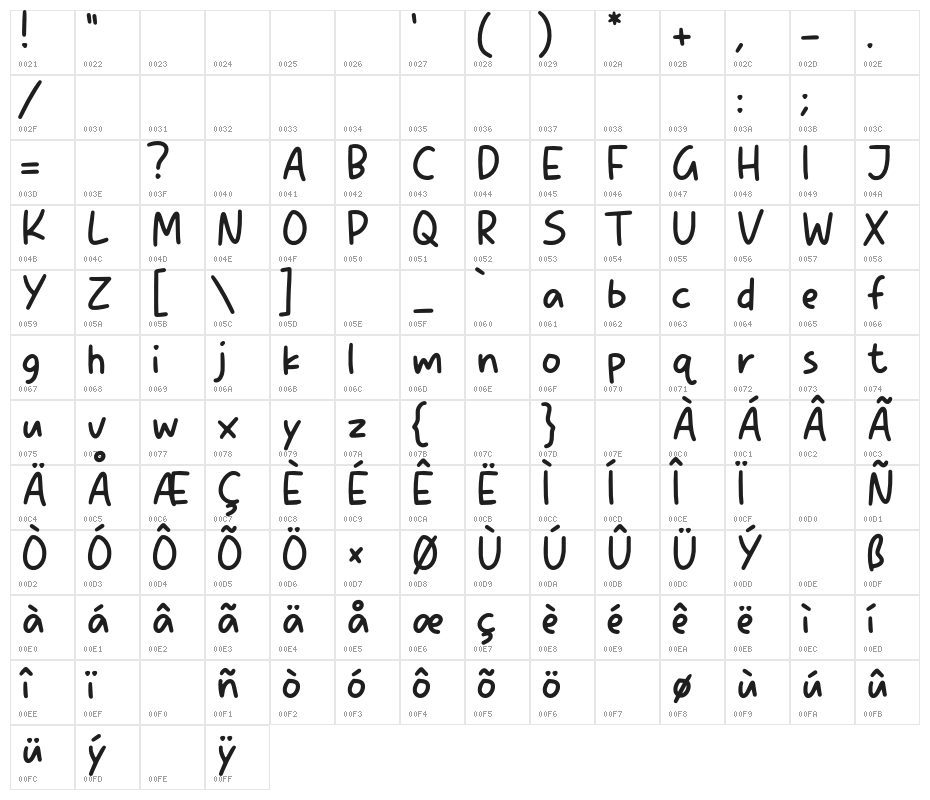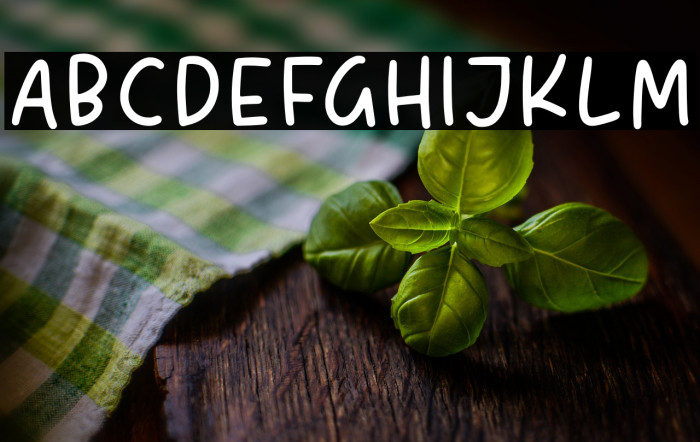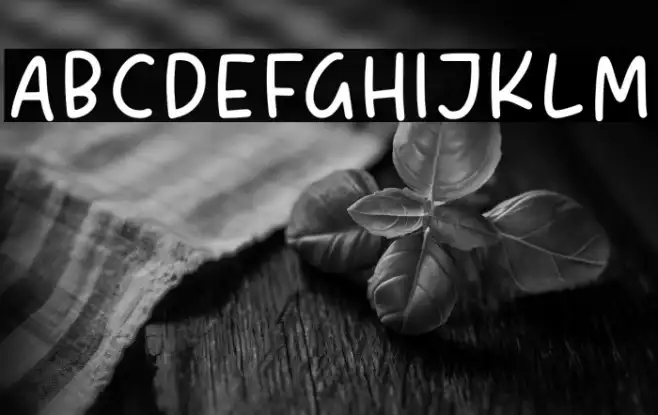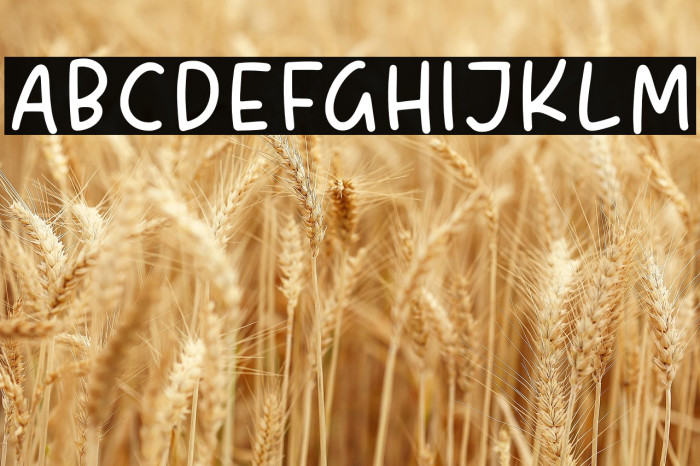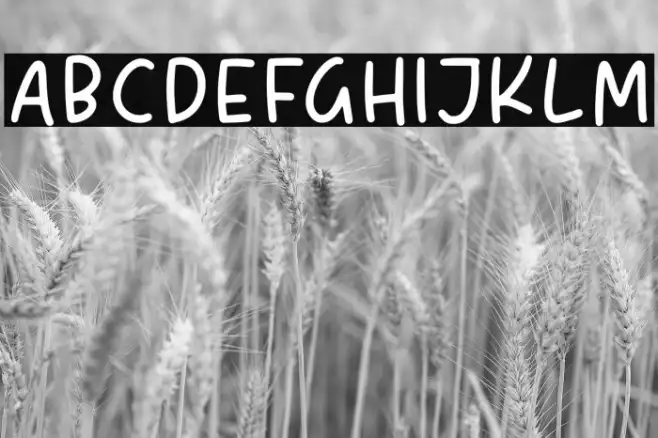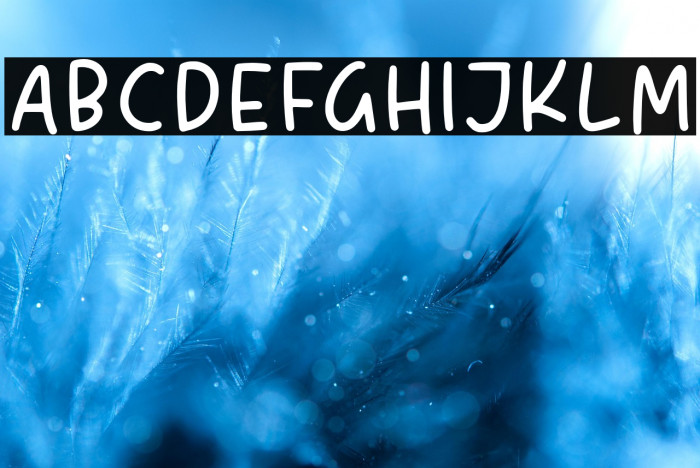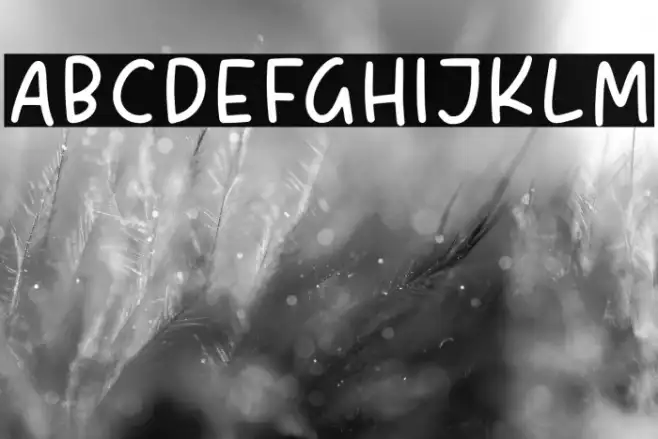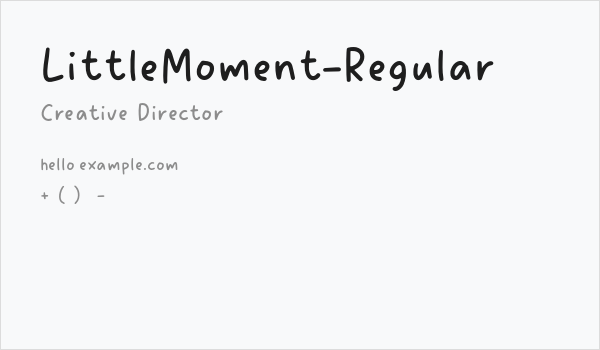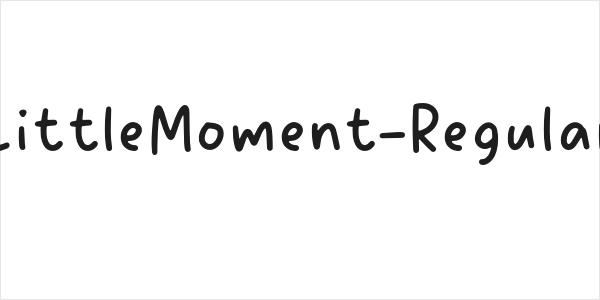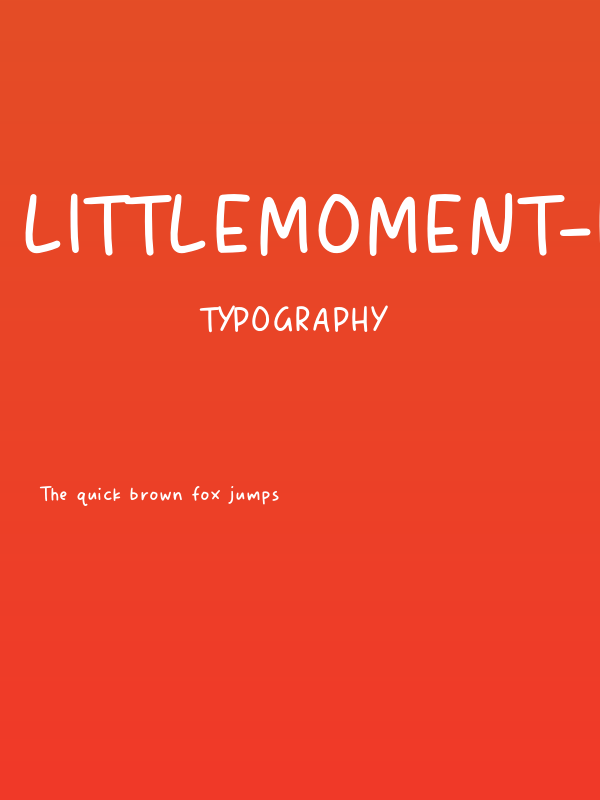
LittleMoment-Regular Font
LittleMoment-Regular Description
This font features a playful and casual handwritten style, characterized by its smooth, rounded edges and slightly irregular letterforms that give it a friendly and approachable feel. The uppercase and lowercase letters maintain a consistent flow, with a slight tilt that adds to its informal charm. The numerals and special characters are crafted with the same playful aesthetic, making it versatile for various creative projects. Its simplicity and warmth make it ideal for designs that require a personal touch, such as greeting cards, children's books, or informal branding.
| Proposed Projects | Ideal for greeting cards, children's books, informal branding, and playful design projects. |